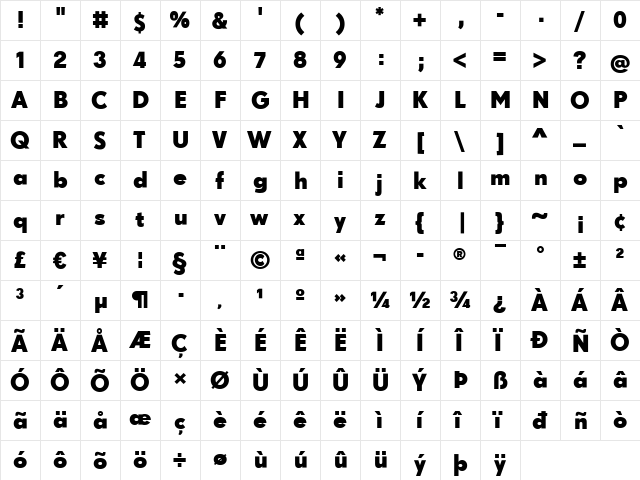
SuperGroteskA Regular
Design Context for SuperGroteskA Typeface
SuperGroteskA takes a clean, functional approach — its unadorned letterforms prioritise legibility and work reliably across screen and print environments.
Font Pairing: Works well alongside a characterful serif or display font that can carry the expressive load while SuperGroteskA handles the functional copy.
Pro Tip: Pair SuperGroteskA with a display or serif font for headlines — its neutral character makes it an excellent supporting player in complex typographic systems.